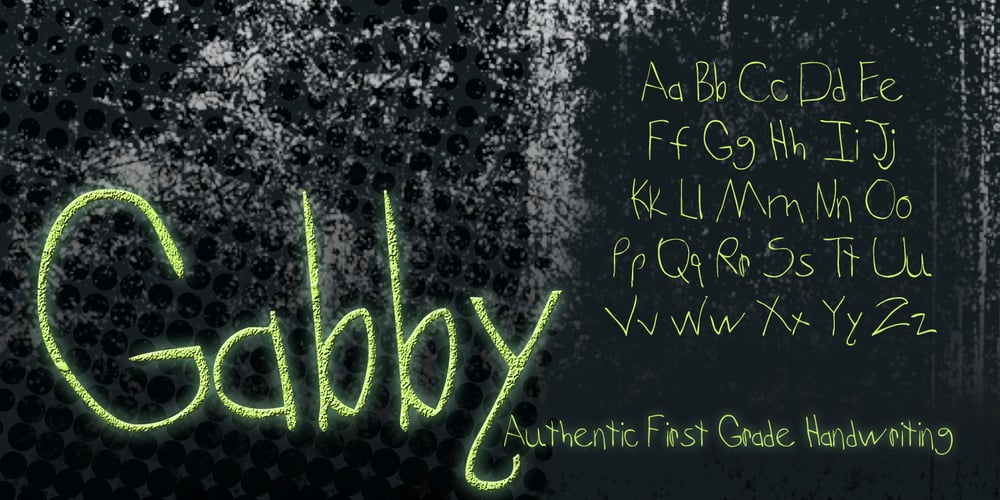
Gabby
Gabby font
Gabby Font Family was designed by Gabrielle Alvarez Grewe, Michelle Grewe and published by Bellafonts. Gabby contains 1 styles and family package options. Gabby is an authentic handwriting of a First Grader. I took all the papers from her backpack during her first grade year and scanned in various letters, cleaned them up, and turned them into a font. This font is how I captured memories of my daughter’s handwriting. This font is perfect for projects requiring the handwriting of a child, such as kid-friendly t-shirts and school projects. Comic Sans can move over because Gabby is readable and authentic. Unlike many decorative fonts, Gabby works well in All Caps or Caps and Lower case. The license allows creative and commercial use, meaning you can use this font on t-shirts, marketing gear, and just about any project you want to do, whether you make money or not. The only stipulation I have is try not to be a jerk with the font. This is my daughter’s handwriting, and we would both cringe if we discovered it was used to bully or threaten people. The license attempts to protect religious icons and the US Military, but overall, just don’t be mean with the font. If you want to be mean, try Comic Sans.